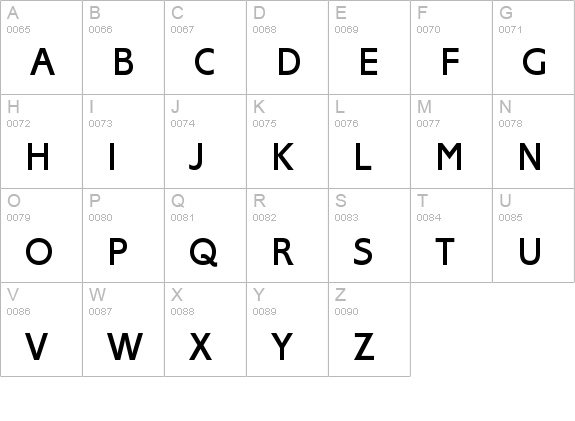
Corinthian Std Medium is a balanced, medium-weight variant in the Corinthian typeface family \xE2\x80\x94 well suited to sub-headlines, navigation, and balanced editorial work.
Corinthian Std Medium font exudes elegance and sophistication with its timeless design and classic appeal. This versatile typeface strikes the perfect balance between modernity and tradition, making it suitable for a wide range of design projects. The medium weight of Corinthian Std Medium lends a sense of balance and clarity to any text, making it easy to read and visually pleasing. Best of all, Corinthian Std Medium font is available for free download at FontsMarket.com. This means you can easily incorporate this beautiful typeface into your projects without any additional cost. Don't miss out on the opportunity to enhance your designs with the exquisite Corinthian Std Medium font, now just a click away for free downloading at FontsMarket.com.